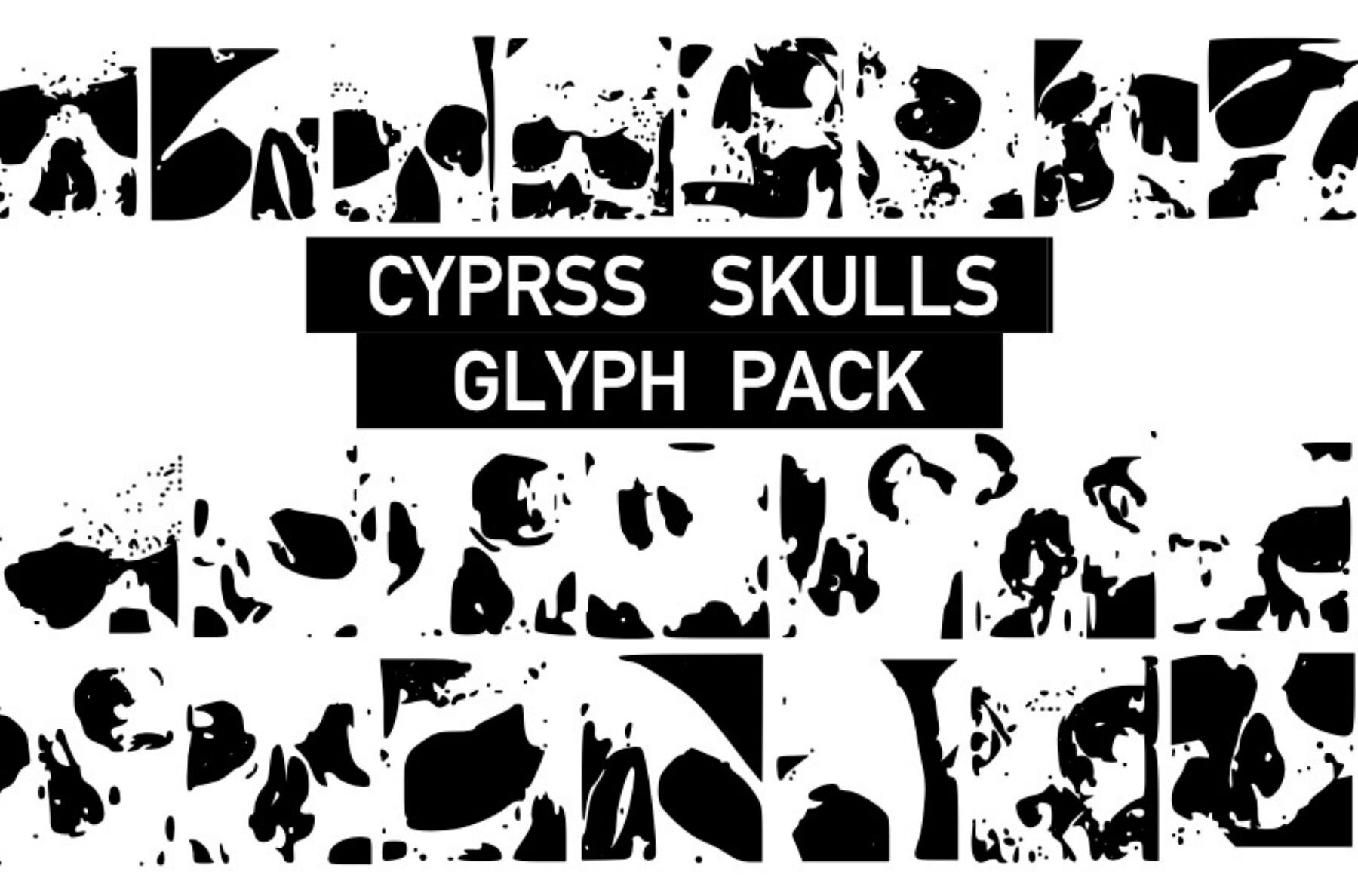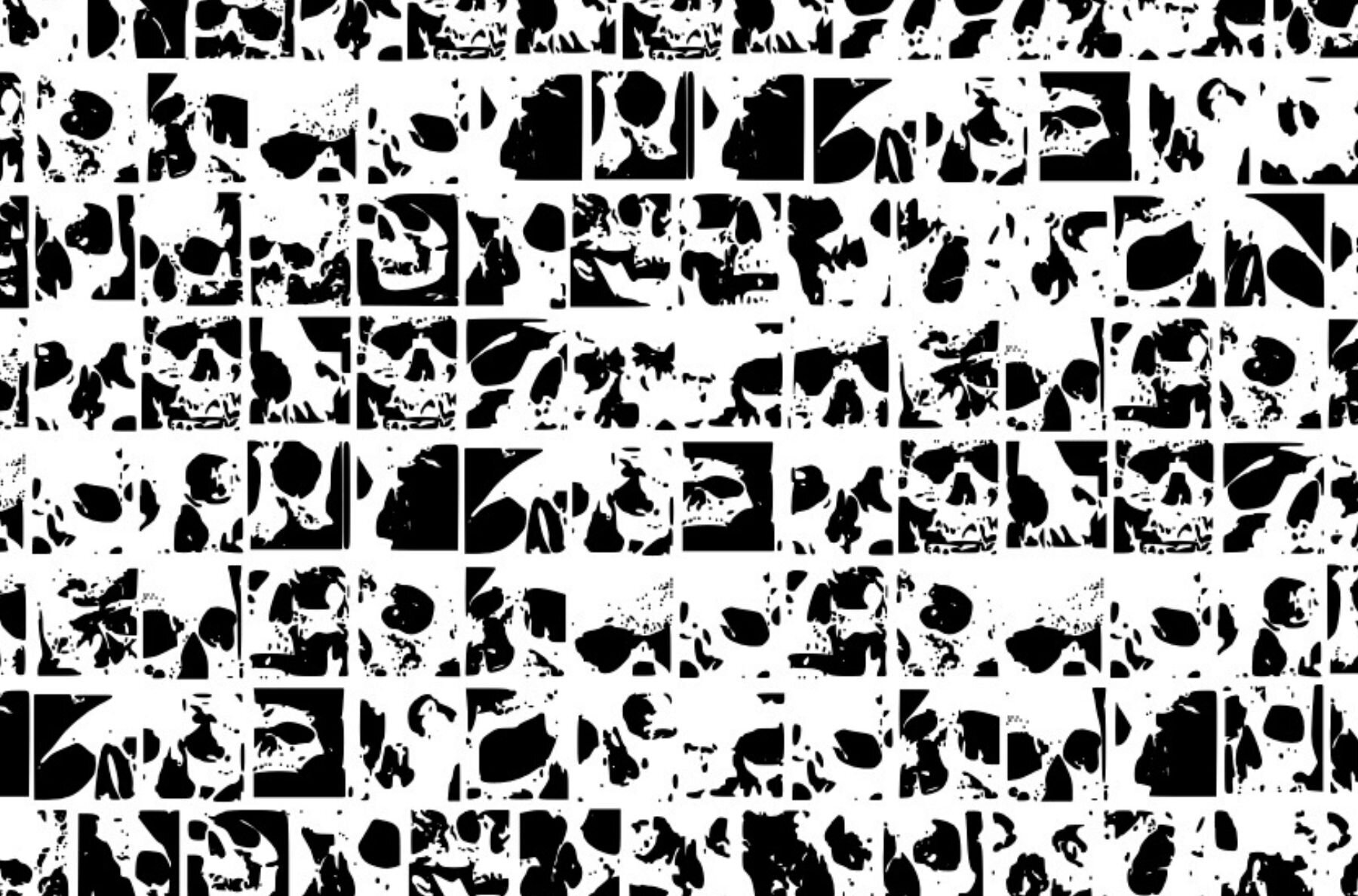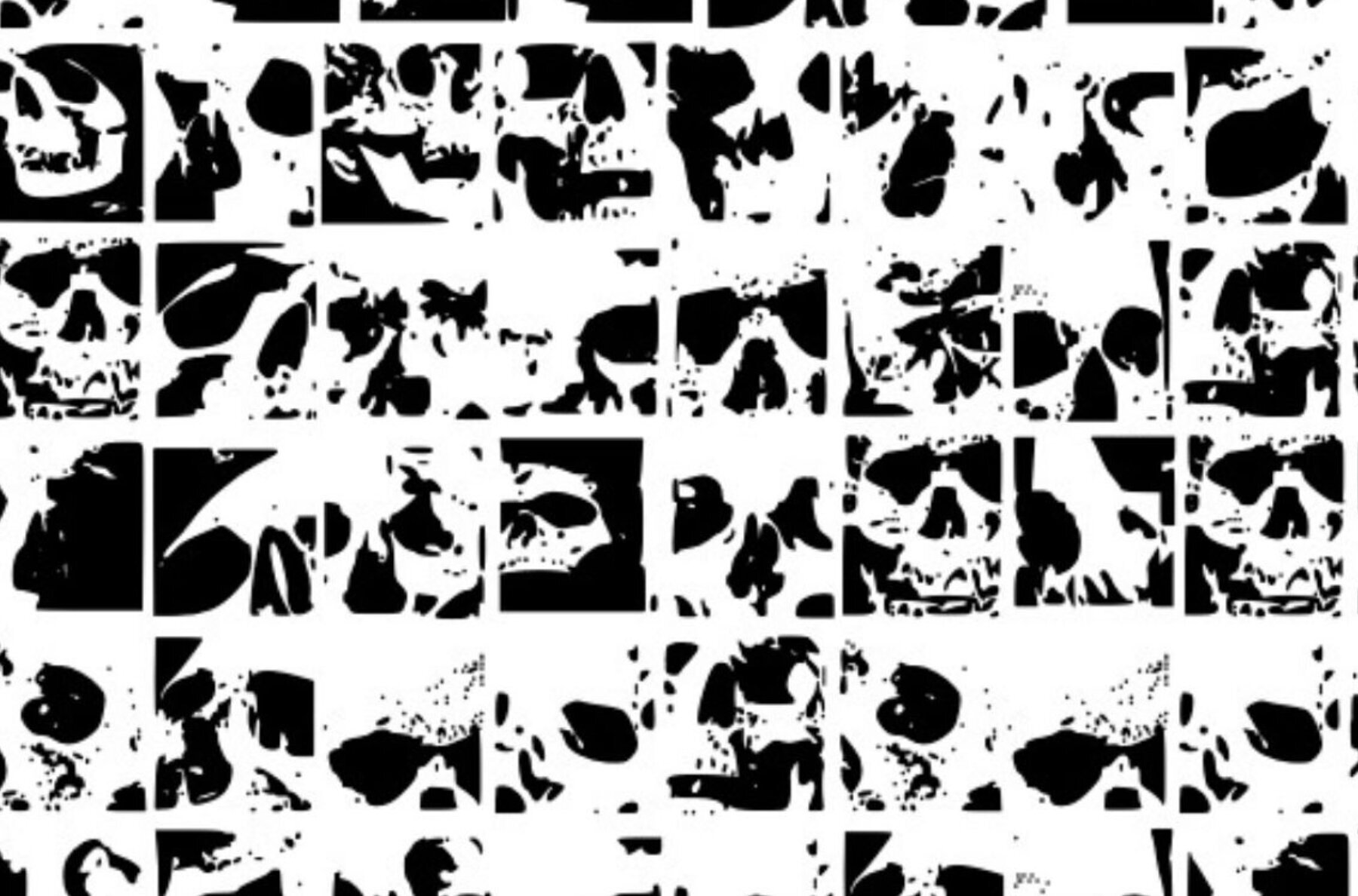
Cypress Skulls Font
Cypress Skulls
Dive into the enigmatic allure of Cypress Skulls, a substantial collection of glyphs with a striking array of human skull designs. Perfect for those looking to add a touch of mystery and sophistication to Halloween-themed projects, rock-style designs, or any dark craft endeavor. With its rich textures and intricate details, this pack is an ideal choice for crafting memorable visual experiences.Cypress Skulls Glyph Pack